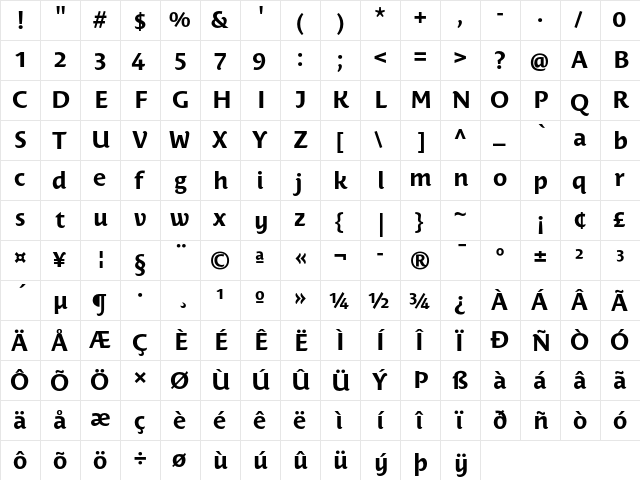
Costa Ptf Bold Font Preview
Costa Ptf Bold
Costa Ptf Bold Font Details
| Designer | Jean Francois Porchez |
Design Context for Costa Ptf Typeface
Costa Ptf offers clean, dependable letterforms without strong stylistic allegiance, making it a practical choice for designers who need flexibility. Its bold stroke weight gives it real presence on the page.